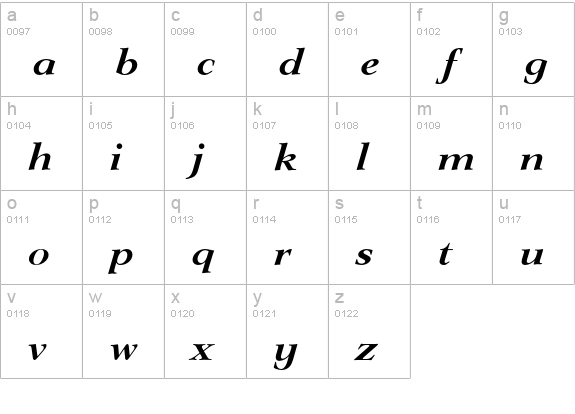
LingwoodEF-DemiBoldItalic is a striking and elegant typeface that exudes sophistication and style. Its bold yet graceful curves make it perfect for adding a touch of luxury to any design project. The italicized form of the font adds a dynamic and modern flair, making it a versatile choice for both headers and body text. The sleek lines and unique character of LingwoodEF-DemiBoldItalic make it stand out from the crowd and capture attention effortlessly. Best of all, LingwoodEF-DemiBoldItalic is available for free download at FontsMarket.com. This means you can enhance your projects with this beautiful font without any cost or hassle. Don't miss out on the opportunity to elevate your designs with LingwoodEF-DemiBoldItalic - download it for free today at FontsMarket.com and unleash your creativity!